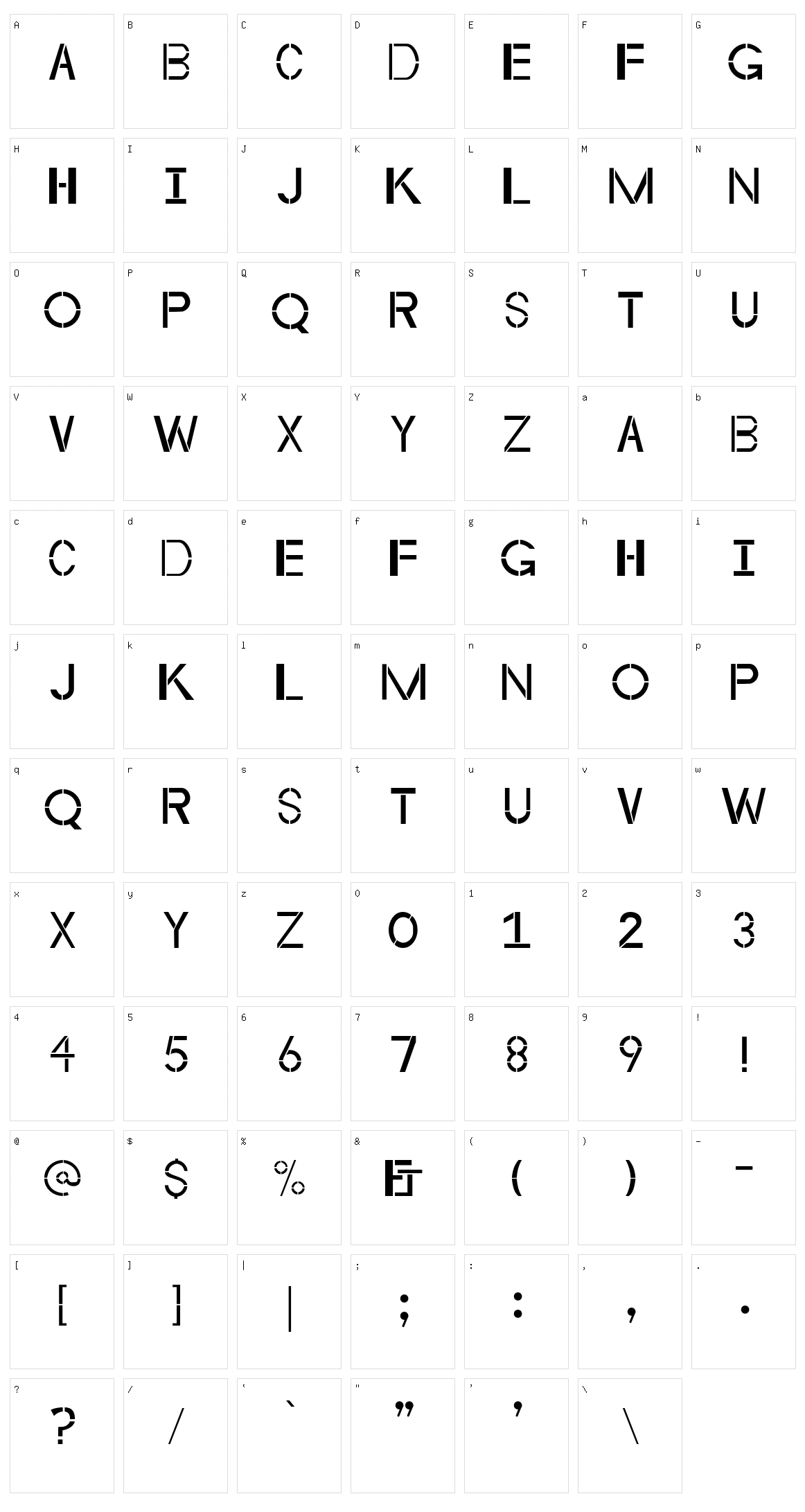
Byzantine Empire Font
The Byzantine Empire font is a sans-serif stencil font created in FontLab Studio and Microsoft Paint. It includes alphanumeric characters, punctuation and international characters. This font is in the public domain. Please read the terms of use at http://jlhfonts.blogspot.com/.